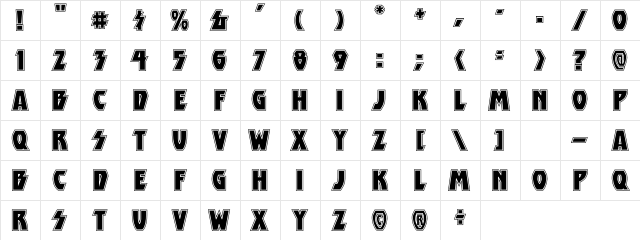
CCDestroyerOutline Regular
Foundry: Active Images
Designer: John 'JG' Roshell
Design Context for CCDestroyerOutline
CCDestroyerOutline is built around its visual character rather than neutral utility - its distinctive forms are designed to make an impression at display sizes.
Font Pairing: Pair with a clean neutral sans-serif for body copy to let CCDestroyerOutline's character lead without overwhelming the composition.
Pro Tip: Use CCDestroyerOutline exclusively at display sizes - it was designed to be seen, not read at length. Let a neutral companion handle body copy.